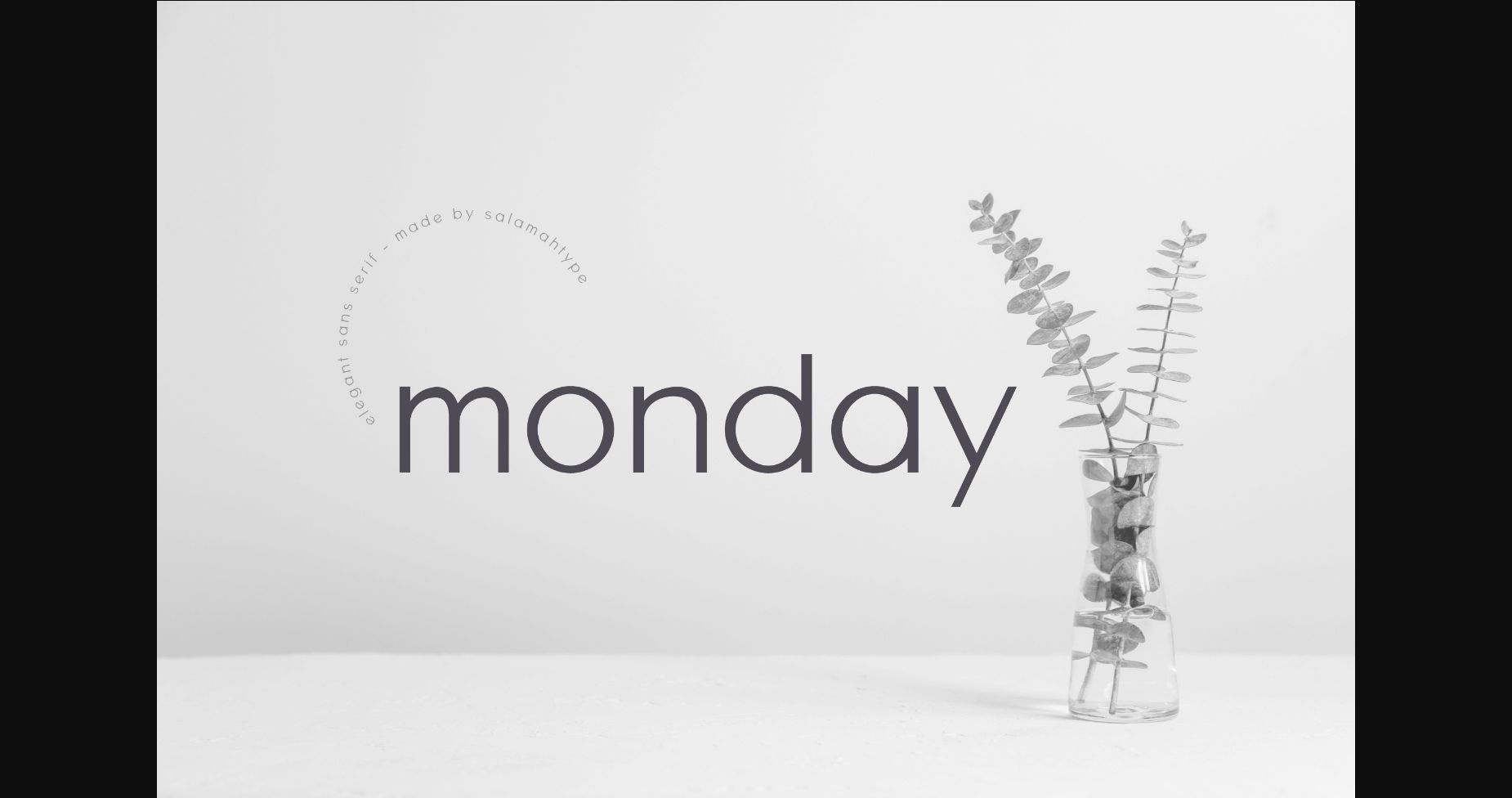
About Monday Font
Monday is a clean sans serif font. This font is perfect for branding projects, logos, social media posts, advertisements, product packaging, wedding invitations, product designs, label, photography, watermark, stationery and so much more.